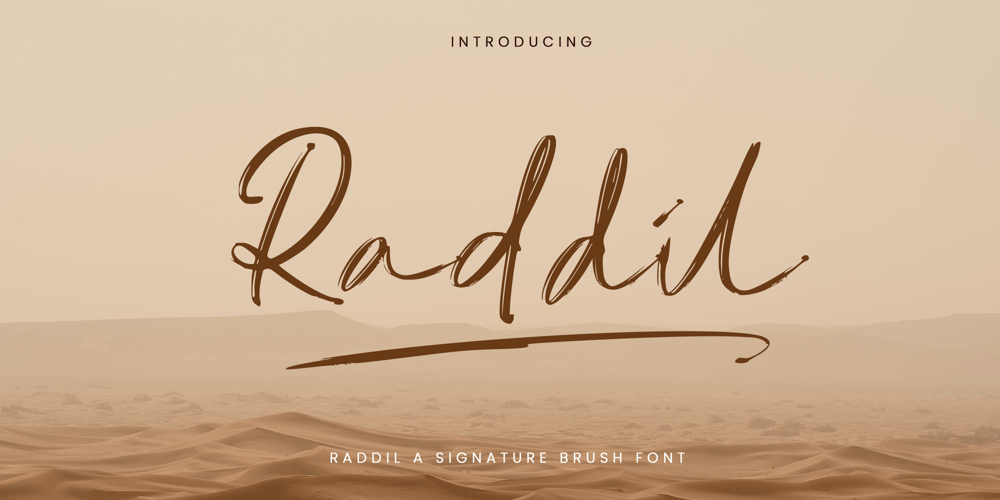
Raddil Font Family was designed by Mohamad Shadiq and published by Amani Studio. Raddil contains 1 styles and family package options. Introducing “Raddil Signature Brush” – a captivating and expressive font that seamlessly combines the timeless elegance of a signature with the dynamic flair of a brush stroke. This font is meticulously crafted to add a touch of sophistication and personality to your projects.With its fluid strokes and natural flow, Raddil Signature Brush exudes a sense of effortless style, making it perfect for a variety of design applications. Whether you’re creating invitations, logos, branding materials, or social media graphics, this font adds a unique and handcrafted touch that sets your work apart.The versatility of Raddil Signature Brush shines through in its ability to convey both casual charm and refined elegance. The brush-style strokes bring a sense of warmth and authenticity, making your text feel personal and approachable.Designed with attention to detail, Raddil Signature Brush is not only visually striking but also highly readable, ensuring that your message is communicated effectively. The font’s seamless integration with various design software makes it user-friendly for designers of all levels.Elevate your creative projects with the distinctive charm of Raddil Signature Brush – where the art of handwriting meets the modernity of digital design. Make a statement with every stroke, and let your typography reflect the unique character of your brand or message.